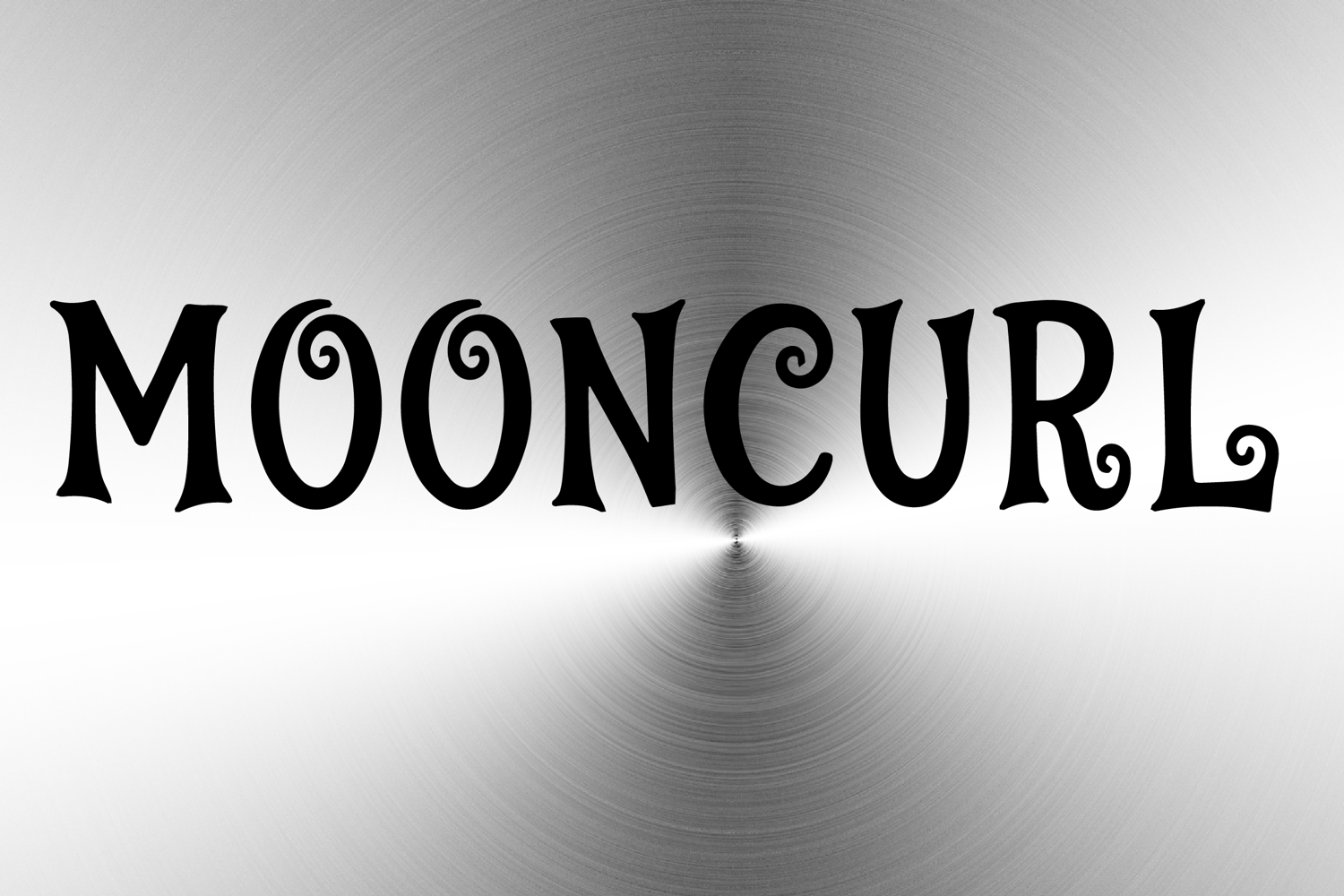
Mooncurl
Mooncurl is a whimsical decorative display font with a magical vintage-inspired style and elegant ornamental charm. Its uppercase letterforms feature bold serif-like forms, dramatic spiral curls, and flowing handcrafted details that create a dreamy, expressive, and eye-catching look. Designed with uppercase letters A–Z and numbers 0–9, Mooncurl is perfect for branding, posters, packaging, invitations, book covers, logos, and creative projects that need a fanciful and memorable statement.
Mooncurl